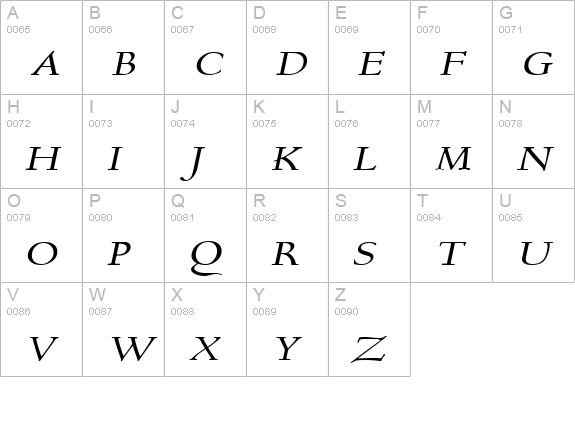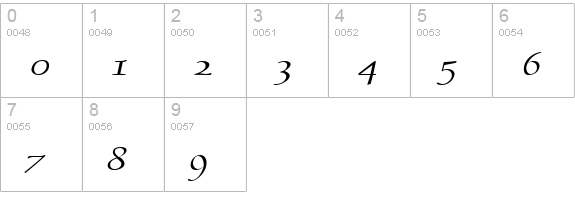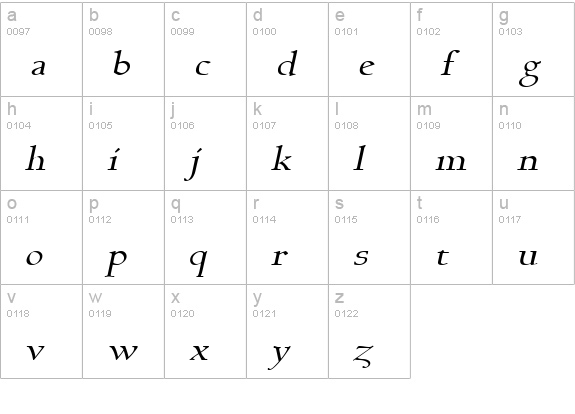
Bravo-Extended Italic is a distinctive, extended-width, italic variant in the Bravo typeface family \xE2\x80\x94 well suited to design and typography projects.
Bravo-Extended Italic font is a stylish and elegant typeface that exudes sophistication and charm. Its slanted design adds a dynamic flair to any text, making it perfect for projects that require a touch of modernity and class. The extended characters provide a unique and eye-catching look, making Bravo-Extended Italic font a versatile choice for various design purposes. Best of all, Bravo-Extended Italic font is available for free download at FontsMarket.com. Whether you're working on a professional presentation, a creative project, or simply looking to elevate your design game, this font is the perfect choice. Download Bravo-Extended Italic font today and add a touch of elegance to your creations.